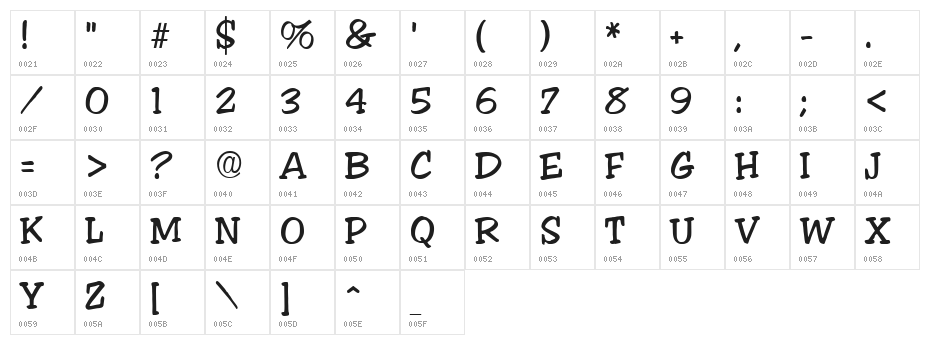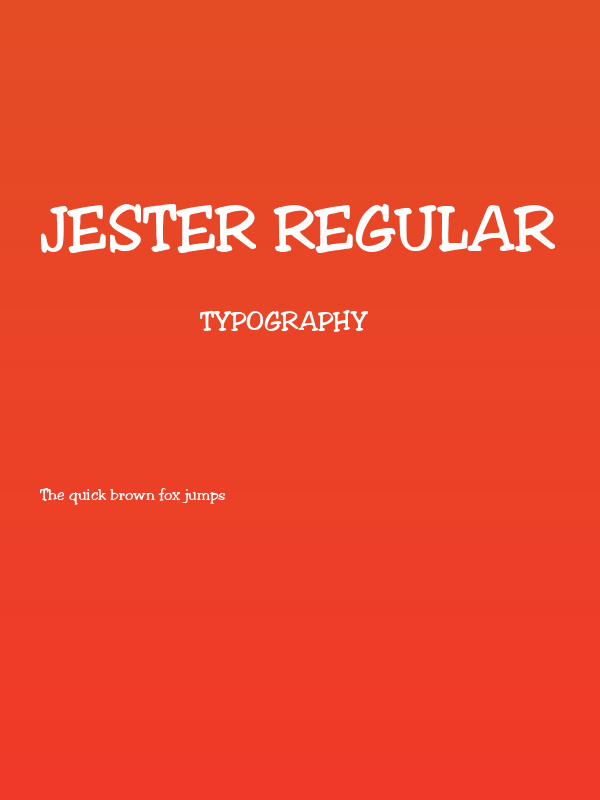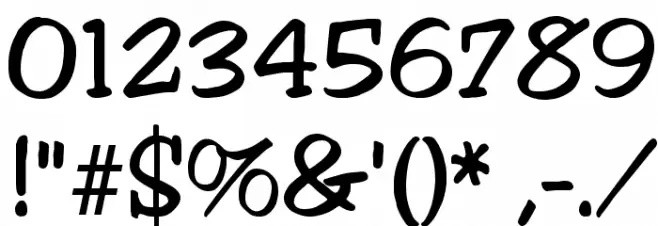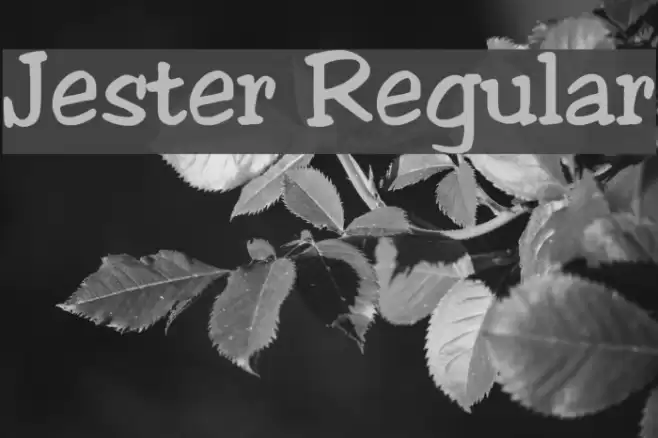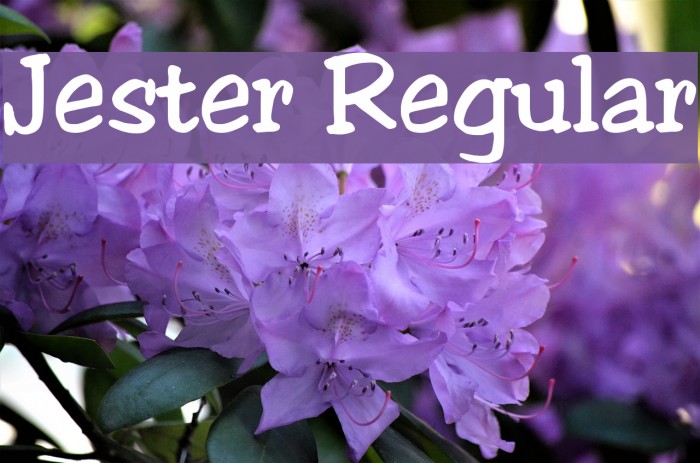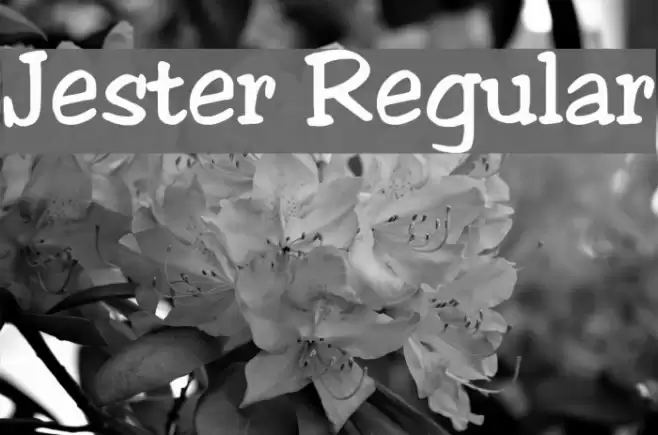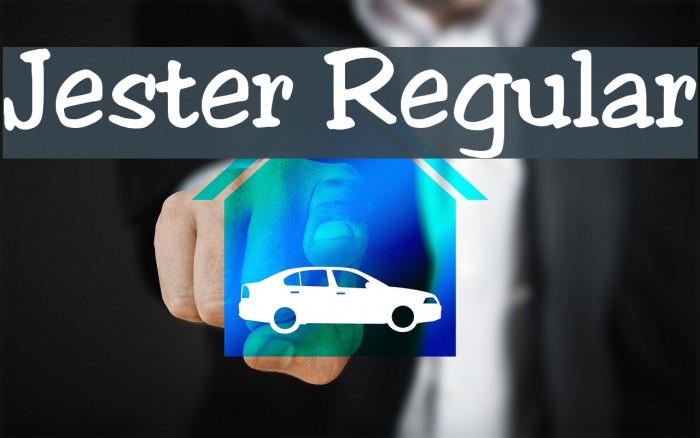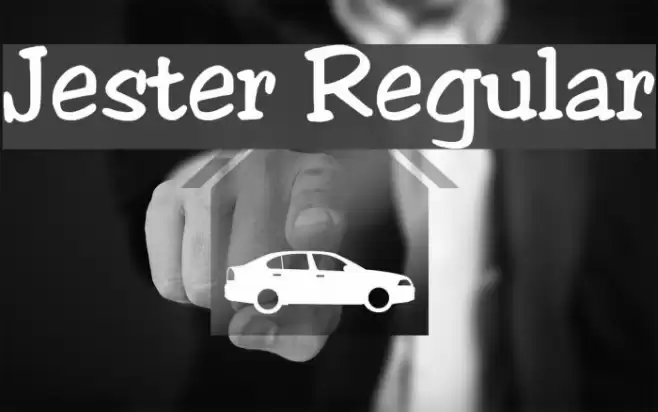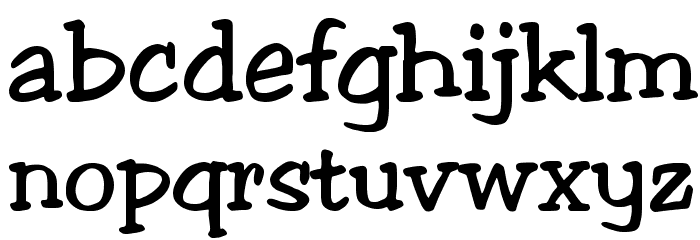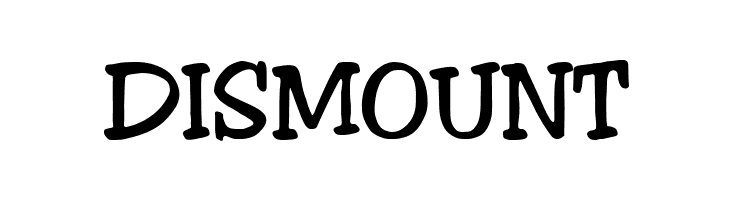
Jester Regular Font
Jester Regular Description
This playful and whimsical font features a hand-drawn style with a slightly irregular baseline, giving it a lively and dynamic appearance. The characters are bold and rounded, with a consistent stroke width that maintains readability while adding a touch of fun. The uppercase letters are slightly larger than the lowercase, providing a nice contrast and making it suitable for both headings and body text. The numerals and special characters are designed to match the overall style, ensuring a cohesive look across different uses.
| Proposed Projects | Ideal for children's books, playful branding, greeting cards, and creative posters. |